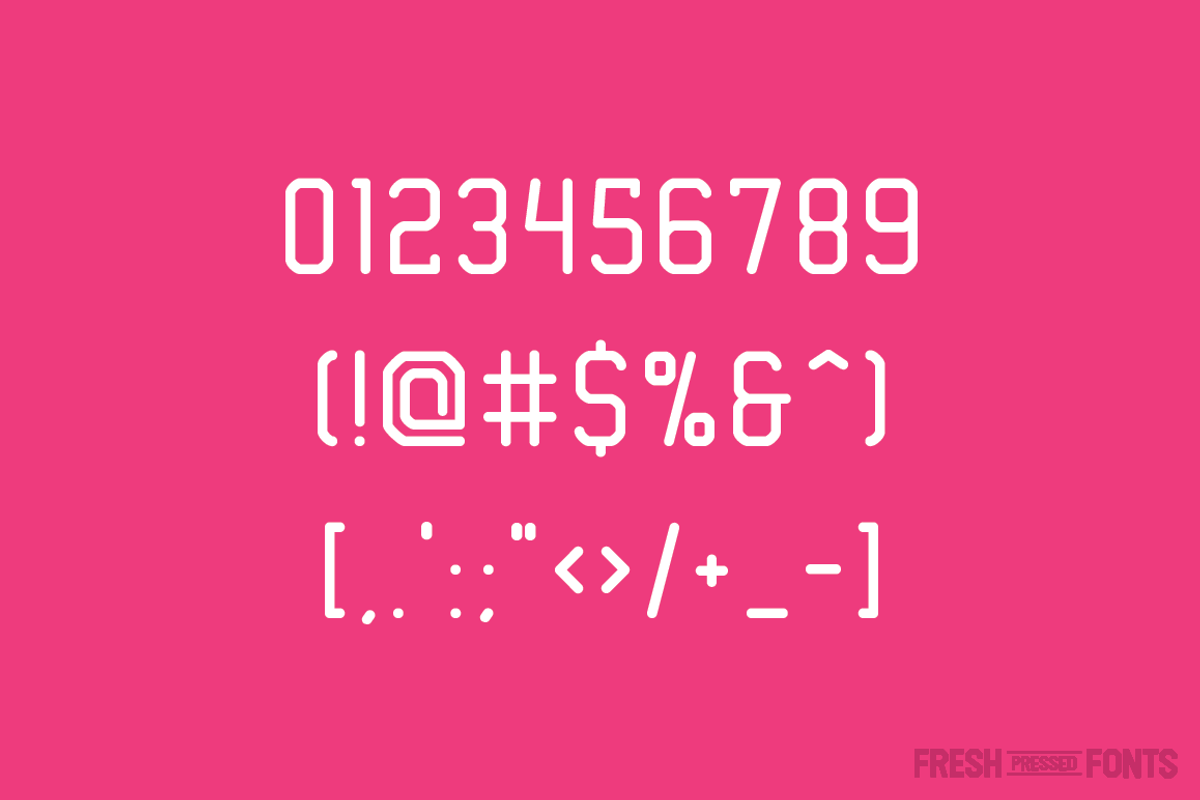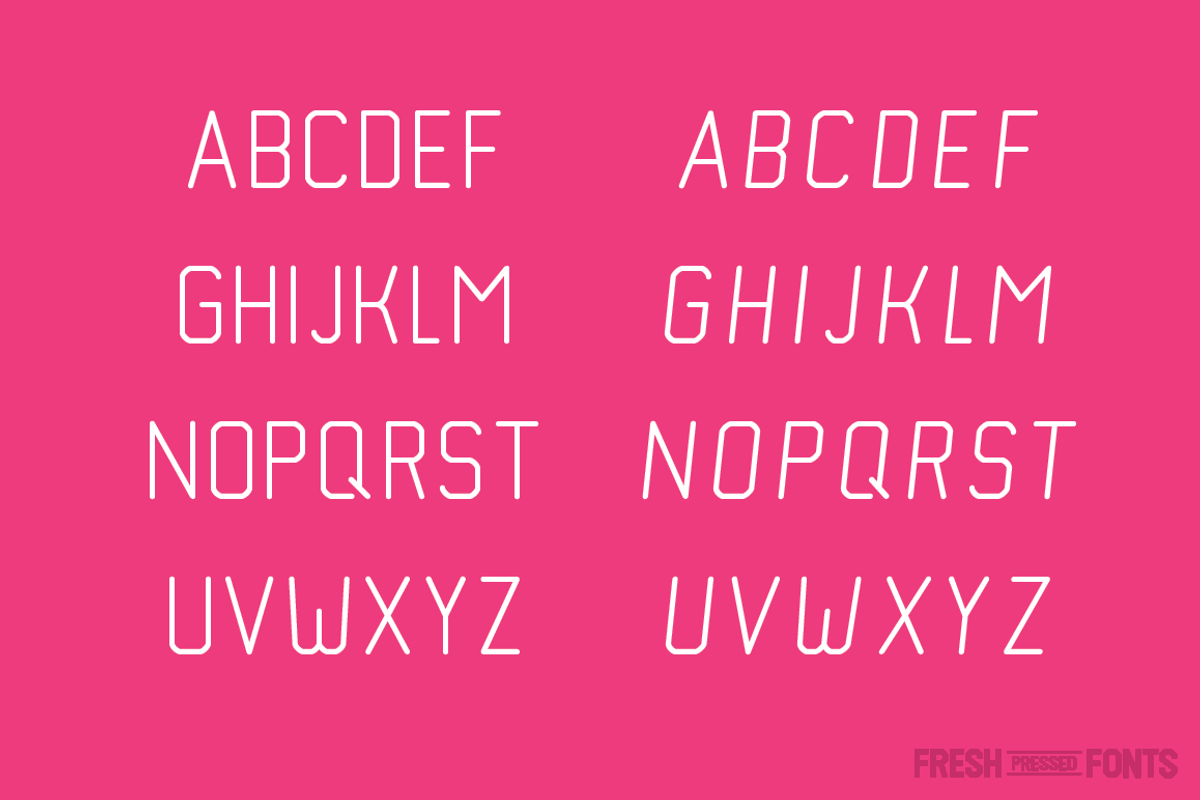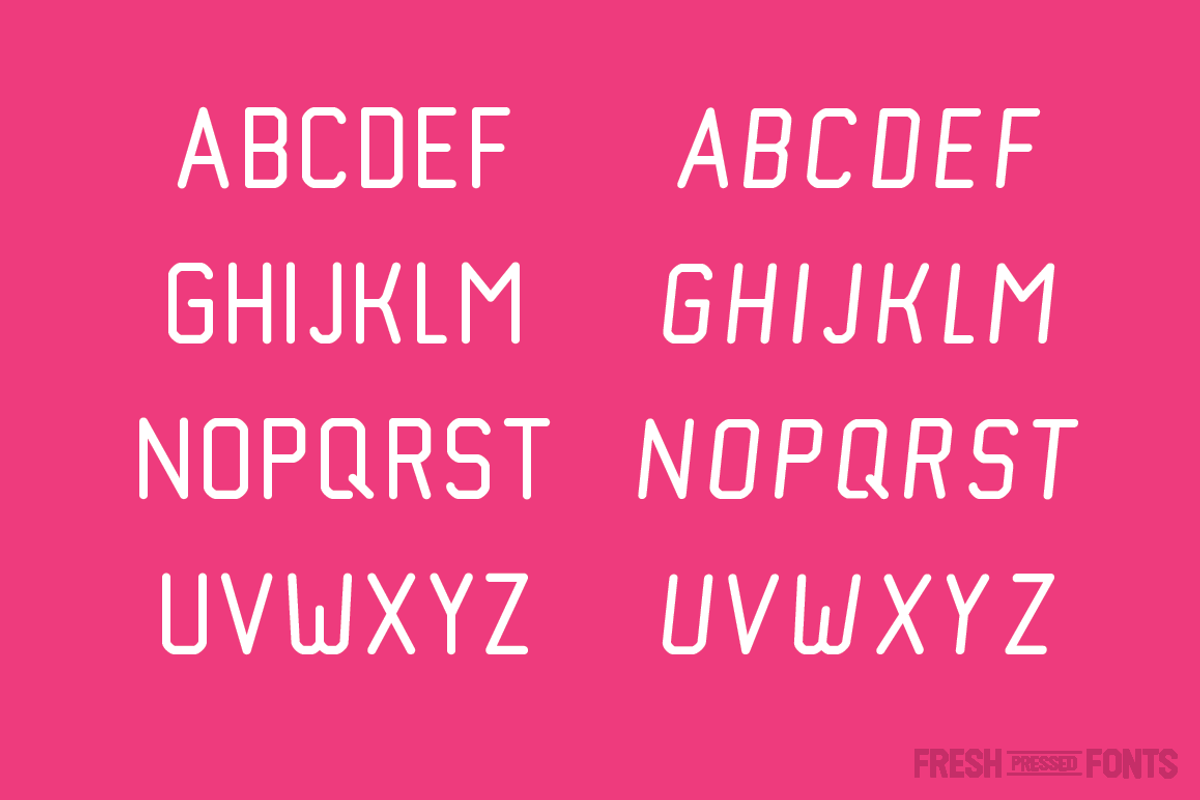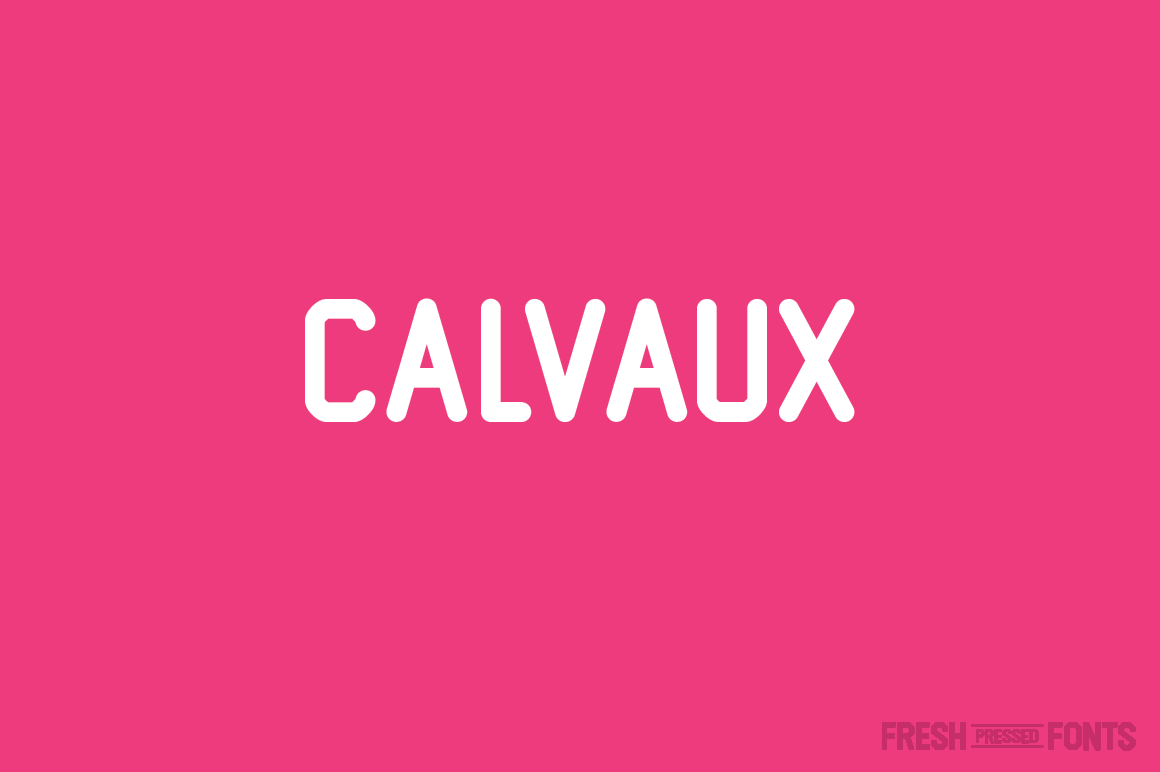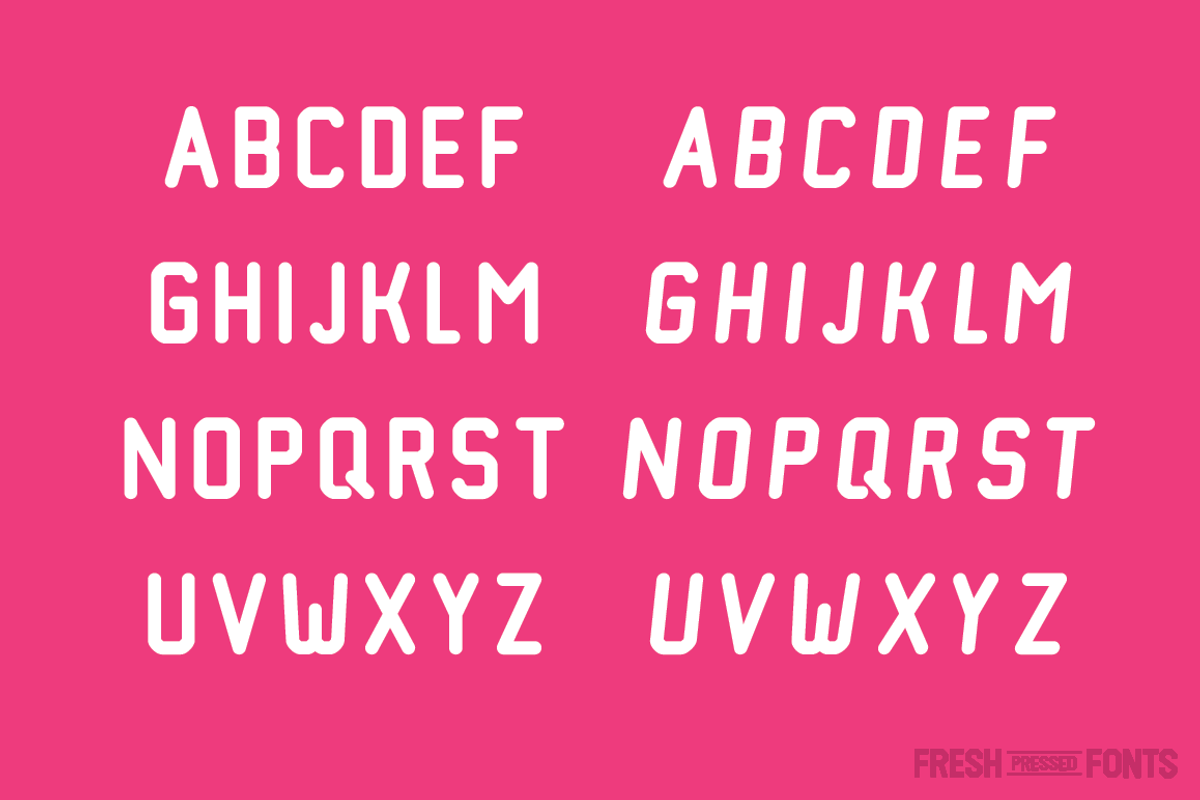
Calvaux Font Family
Calvaux is a versatile and edgy typeface. The combination of strong angles and rounded ends make Calvaux useful for many designs.
The font family is comprised of Light, Light Italic, Regular, Regular Italic, Bold, and Bold Italic. It is sport inspired and aims to give designs that edgy and dynamic look. Regular Italic has been released for free but remains in this font package, however the price is adjusted accordingly and you will not be paying for a font that is already free.